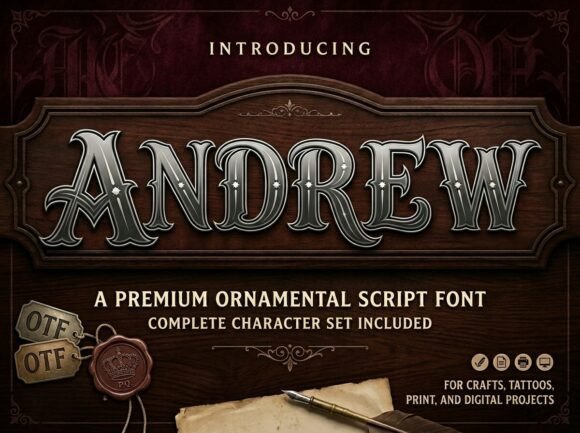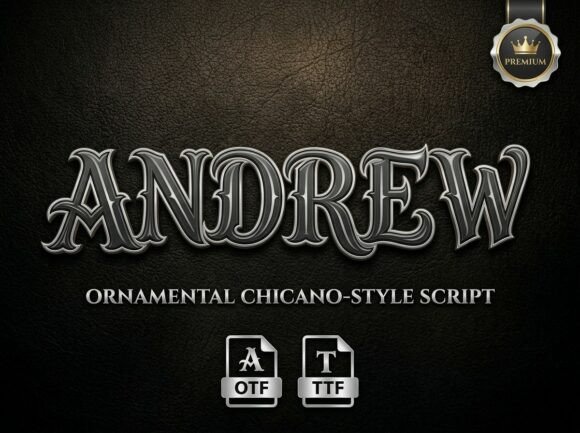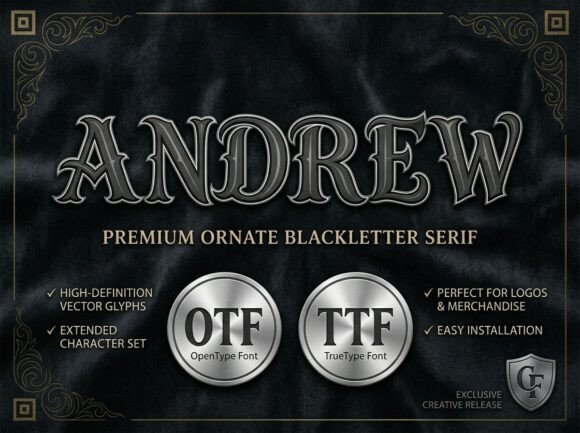
Introducing Andrew: The Ornate Victorian Tattoo Style Font
Step into the world of vintage ink with Andrew, a powerful display font that captures the soul of traditional Victorian tattoo artistry. This stunning all-caps typeface is designed to transport you back in time to an era of bold, daring, and ornate tattoo art. With its chiseled letterforms and intricate filigree-inspired accents, Andrew demands attention and makes a statement.
The Inspiration Behind Andrew
The Victorian era, which spanned from the late 1830s to the early 1900s, was a time of great cultural and artistic transformation. During this period, tattoo artistry began to flourish, with sailors, soldiers, and travelers bringing back exotic designs and techniques from around the world. Traditional Victorian tattoo art is characterized by its bold lines, vibrant colors, and intricate patterns, often featuring floral motifs, anchors, and other nautical symbols.
Andrew, the ornate Victorian tattoo style font, draws inspiration from this rich history of tattoo artistry. The font’s creator aimed to distill the essence of Victorian-era tattoo art into a modern, usable typeface that would be perfect for designers and crafters looking to add a touch of old-world grit to their work.
Design Features of Andrew
Andrew is an all-caps display font, featuring bold, chiseled letterforms that are sure to grab attention. The font’s design is characterized by:
- Intricate filigree-inspired accents: Delicate, swirling patterns adorn each letterform, adding an extra layer of detail and visual interest.
- Bold, chiseled letterforms: Each letter is carefully crafted to resemble the bold, confident lines of traditional Victorian tattoo art.
- Ornate terminals: The font’s terminals are adorned with intricate flourishes, adding a touch of elegance and sophistication.
Use Cases for Andrew
Andrew is a versatile font that can be used in a variety of creative projects, including:
- Barbershop branding: Add a touch of vintage flair to your barbershop’s logo, signage, or marketing materials.
- Craft spirit labels: Give your craft spirits a label that stands out with Andrew’s bold, eye-catching design.
- Apparel design: Create striking t-shirts, posters, and other apparel with Andrew’s bold, attention-grabbing letterforms.
- High-impact poster art: Use Andrew to create bold, eye-catching posters that demand attention.
Tips for Using Andrew
To get the most out of Andrew, here are a few tips to keep in mind:
- Use it sparingly: Andrew is a bold, attention-grabbing font. Use it sparingly to make a statement, rather than overwhelming your design.
- Pair it with contrasting fonts: Pair Andrew with simpler, more straightforward fonts to create visual interest and contrast.
- Experiment with colors: Traditional Victorian tattoo art often features bold, vibrant colors. Experiment with different color schemes to bring Andrew to life.
Andrew, the ornate Victorian tattoo style font, is a powerful display font that captures the soul of traditional Victorian tattoo artistry. With its bold, chiseled letterforms and intricate filigree-inspired accents, this all-caps typeface demands attention. Whether you’re a designer, crafter, or simply a fan of vintage tattoo art, Andrew is the perfect choice for adding a touch of old-world grit to your creative projects.